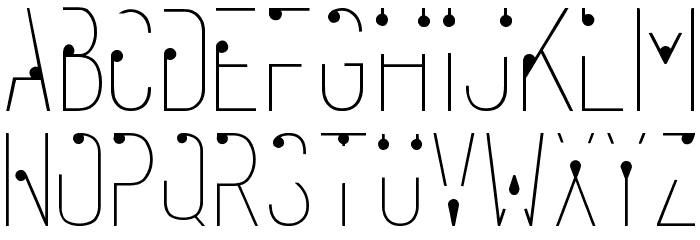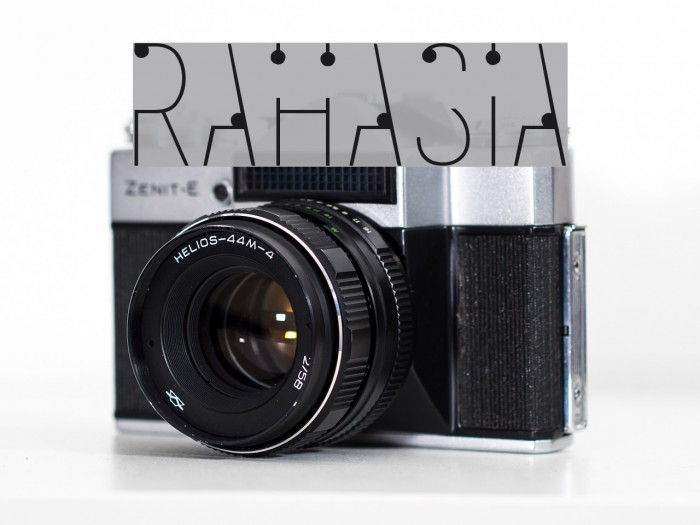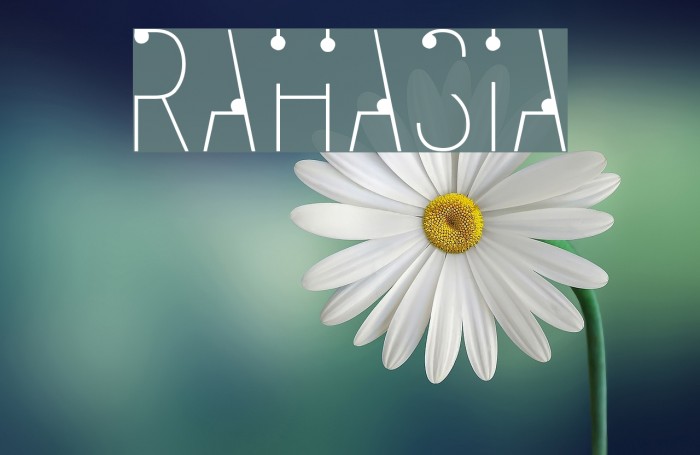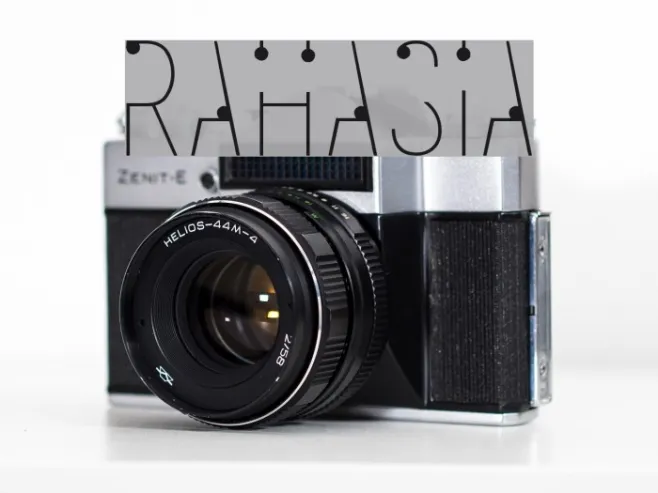
RAHASIA Font
This font features a unique and modern design with a minimalist aesthetic. The characters are composed of thin, clean lines with distinctive dot embellishments that add a playful and artistic touch. The uppercase and lowercase letters maintain a consistent style, with geometric shapes and a uniform stroke width. The numbers and special characters follow the same design principles, ensuring a cohesive look across all elements. This font stands out with its creative use of space and form, making it ideal for projects that require a contemporary and innovative appearance.
A modern, minimalist font with geometric shapes and dot embellishments.
- Proposed Projects: Ideal for branding, logo design, modern art projects, and creative advertising.
- Use Case: Logos, Headlines, Artistic projects